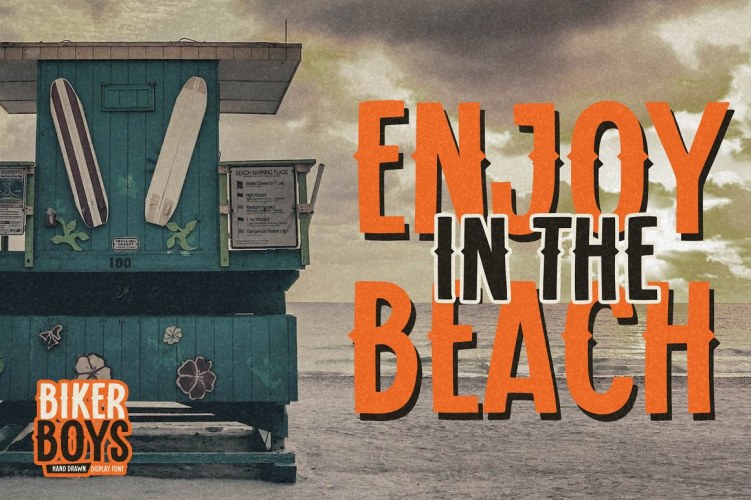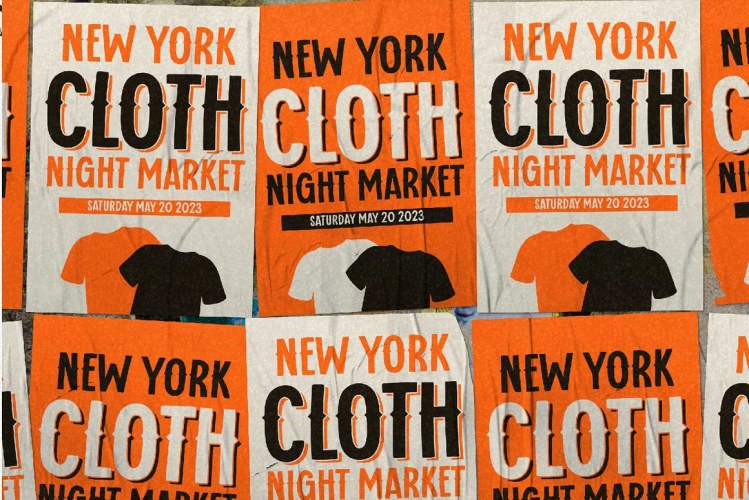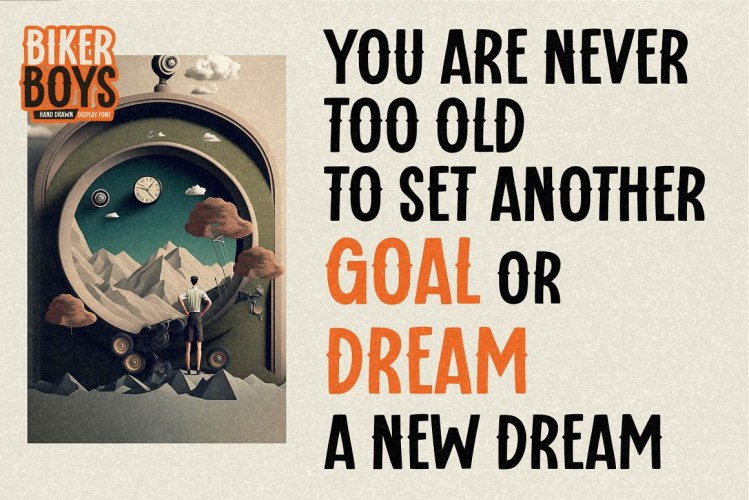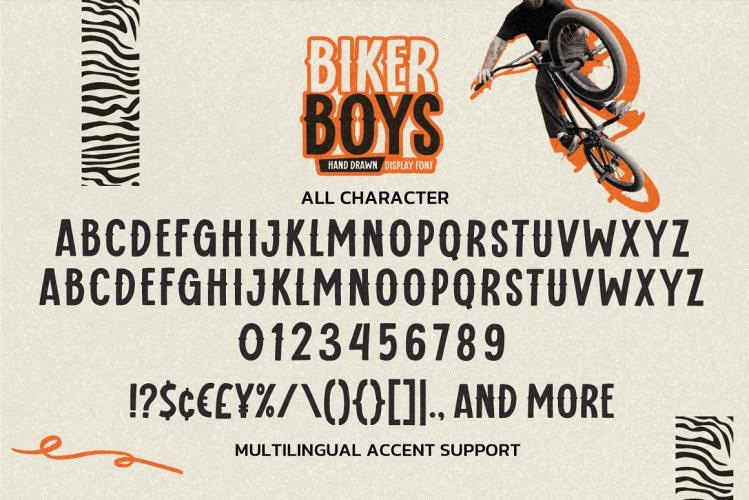
Biker Boys – Hand Drawn Display Font
This font Biker Boys is great for your next creative project such as logos, printed quotes, invitations, cards, product packaging, headers, Logotype, Letterhead, Poster,…
This font Biker Boys is great for your next creative project such as logos, printed quotes, invitations, cards, product packaging, headers, Logotype, Letterhead, Poster, Design this font is great for your creative projects such as watermark on photography, and perfect for logos & branding, invitation, advertisements, product designs, stationery, wedding designs, label ,product packaging, special events or anything that need handwriting taste. That is has charming, authentic and relaxed characteristic more natural look to your text.
Where Biker Boys – Hand Drawn Display Font works best
Biker Boys – Hand Drawn Display Font is built for size: event posters, hero headlines and billboard-style layouts.
High contrast display type like Biker Boys – Hand Drawn Display Font reads instantly in thumbnails and motion graphics.
What is Biker Boys – Hand Drawn Display Font good for?